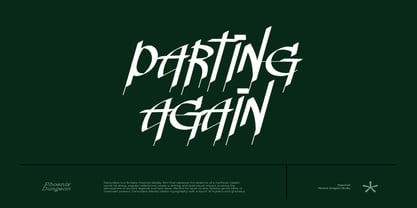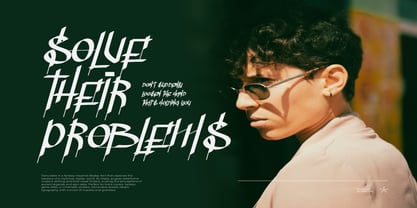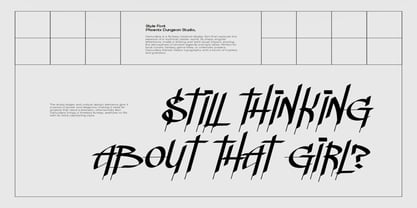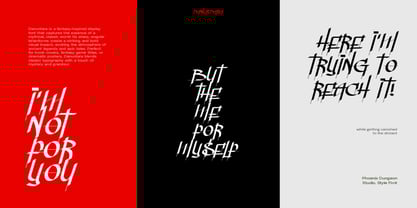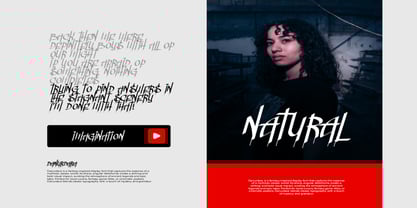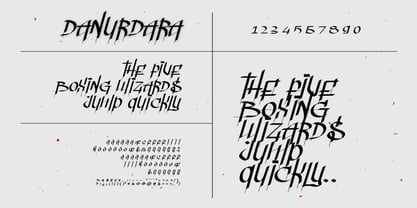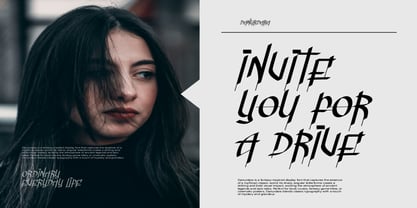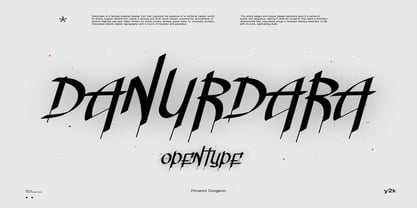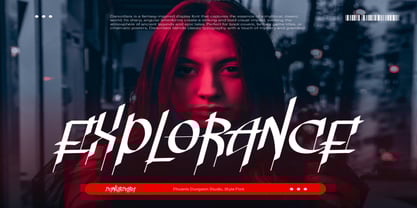
Danurdara
by Phoenix Group
The Danurdara Font Family was designed by Alif Naufal Muzakki and published by Phoenix Group. Danurdara contains 1 styles. More about this family
Danurdara is a fantasy-inspired display font that captures the essence of a mythical, classic world. Its sharp, angular letterforms create a striking and bold visual impact, evoking the atmosphere of ancient legends and epic tales. Perfect for book covers, fantasy game titles, or cinematic posters, Danurdara blends classic typography with a touch of mystery and grandeur. The sharp edges and unique design elements give it a sense of power and elegance, making it ideal for projects that need a dramatic, otherworldly feel. Danurdara brings a timeless fantasy aesthetic to life with its bold, captivating style.
Designers: Alif Naufal Muzakki
Foundry: Phoenix Group